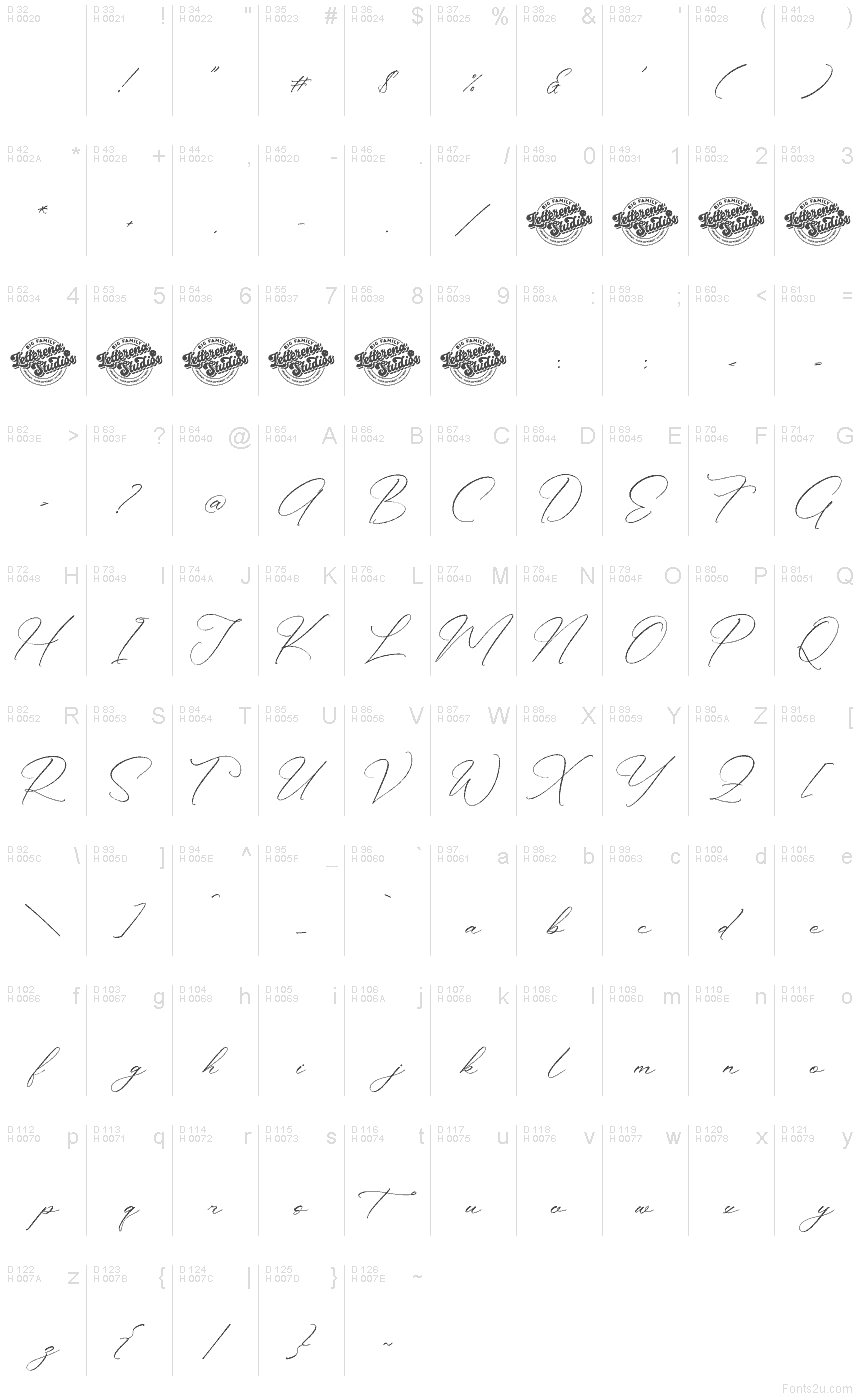
Anthellia DEMO VERSION
Anthellia font by Storytype Studio is an elegant, cursive, flowing free handwritten font with a hint of sophistication. Light, graceful, and sophisticated are just three words of many that will come to your mind when you visualize or print Anthellia on your designs. The stylish baseline provides the characters with a uniquely exceptional look.
Anthellia extends its beauty to branding designs for cosmetics products, apparel items, and business cards as well as constituting a great typographic element in posters and stationery. For digital use cases, the font will excellently fit typography-based video-projects intro titles.